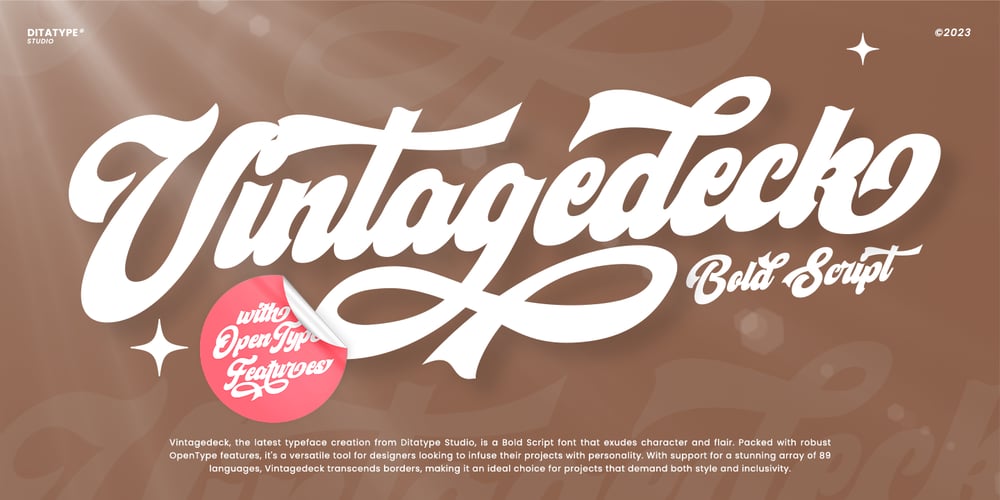
Vintagedeck Font Family was designed by Donis Miftahudin and published by Ditatype. Vintagedeck contains 1 styles and family package options. Vintagedeck is a charming script font that gracefully combines vintage elegance with contemporary style. Each character in Vintagedeck is crafted with care. Designed with a fairly thick weight and a shape that gently nods to rounded forms, Vintagedeck is a versatile font that brings a touch of welcoming feel.The overall looks create a warm, approachable aesthetic reminiscent of classic handwriting, yet perfectly suited for the demands of current design trends. To truly appreciate the beauty and clarity of this font, it is recommended to use it in a larger font size. This not only improves readability but also allows its unique characteristics to shine. In addition, enjoy the features here.Features: Ligatures Stylistic Sets Multilingual Supports PUA Encoded Numerals and Punctuations Vintagedeck fits in headlines, logos, posters, flyers, branding materials, greeting cards, print media, editorial layouts, and many more designs. Find out more ways to use this font by taking a look at the font preview.Thanks for purchasing our fonts. Hopefully, you have a great time using our font. Feel free to contact us anytime for further information or when you have trouble with the font. Thanks a lot and happy designing.